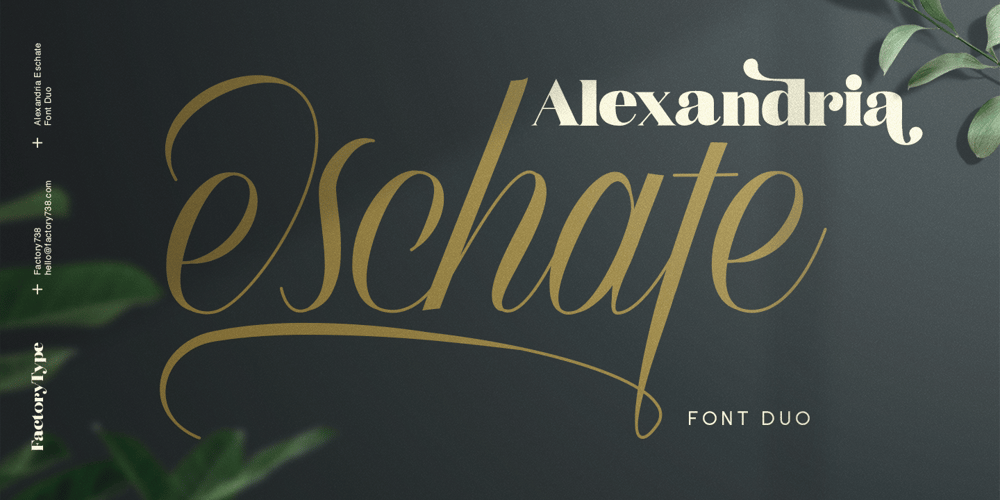
Alexandria Eschate
Alexandria Eschate font
Alexandria Eschate Font Family was designed by Wahyu Rahmawan and published by Factory738. Alexandria Eschate contains 2 styles and family package options. Alexandria Eschate Font Duo is a contemporary pair of script and serif fonts. Its offers beautiful typographic harmony for a diversity of design projects, name card, headlines, branding visual identity, poster, logo, magazines and etc. 2 fonts (Script and Serif) Basic Latin A-Z and a-z Numerals & Punctuation Stylistic Alternates Multilingual Support for ä ö ü Ä Ö Ü … OTF file format Free updates and feature additions Thanks for looking, and I hope you enjoy it.